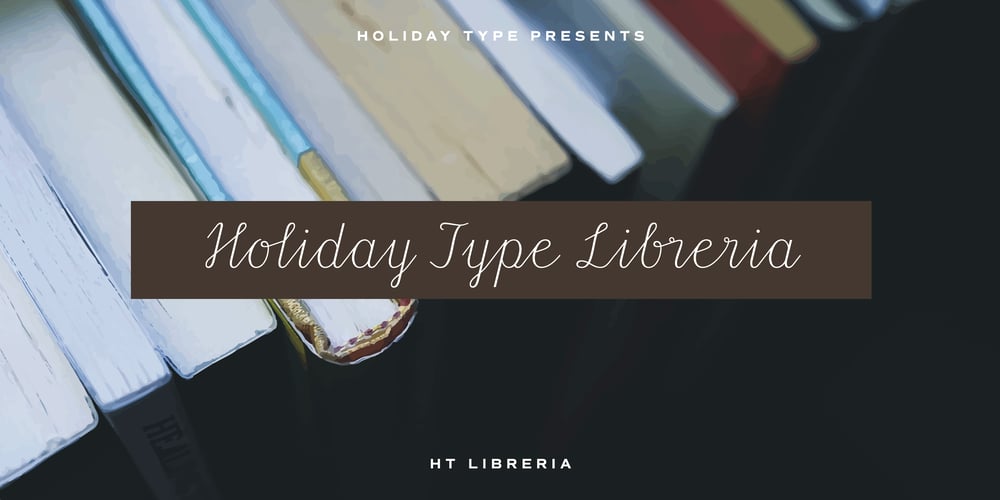
HT Libreria Font Family was designed by Ryoichi Tsunekawa and published by Dharma Type. HT Libreria contains 1 styles and family package options. This font consists of thin lines, we get very delicate impression.The straight lines are regularly arranged, at the same time, this font has very beautiful curved lines. So its overall atmosphere is intelligent and sophisticated. Holiday Type Project offers retro hand drawing scripts. Inspired by retro script on shopfront lettering, wall paint advertisements in Italy around 1950s. Check out the script fonts from Holiday Type!